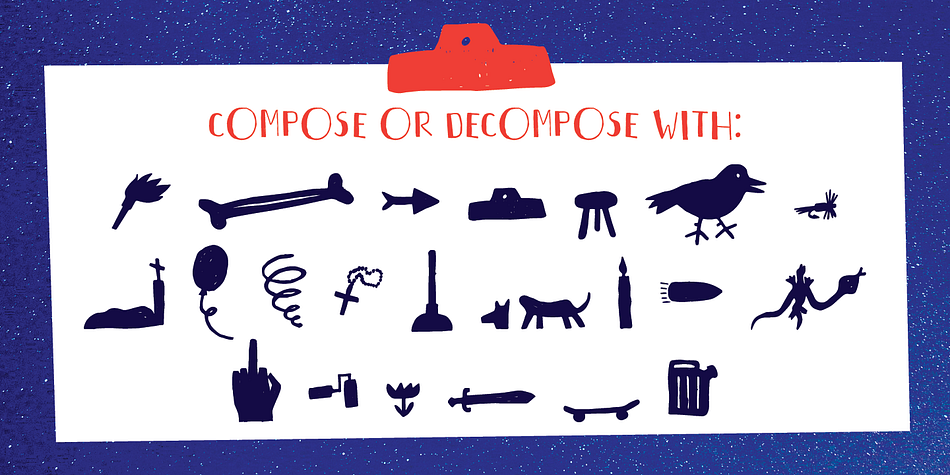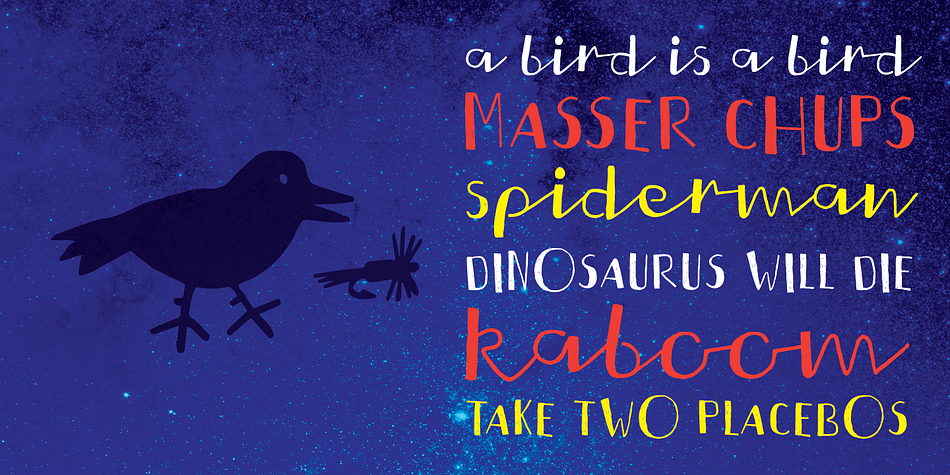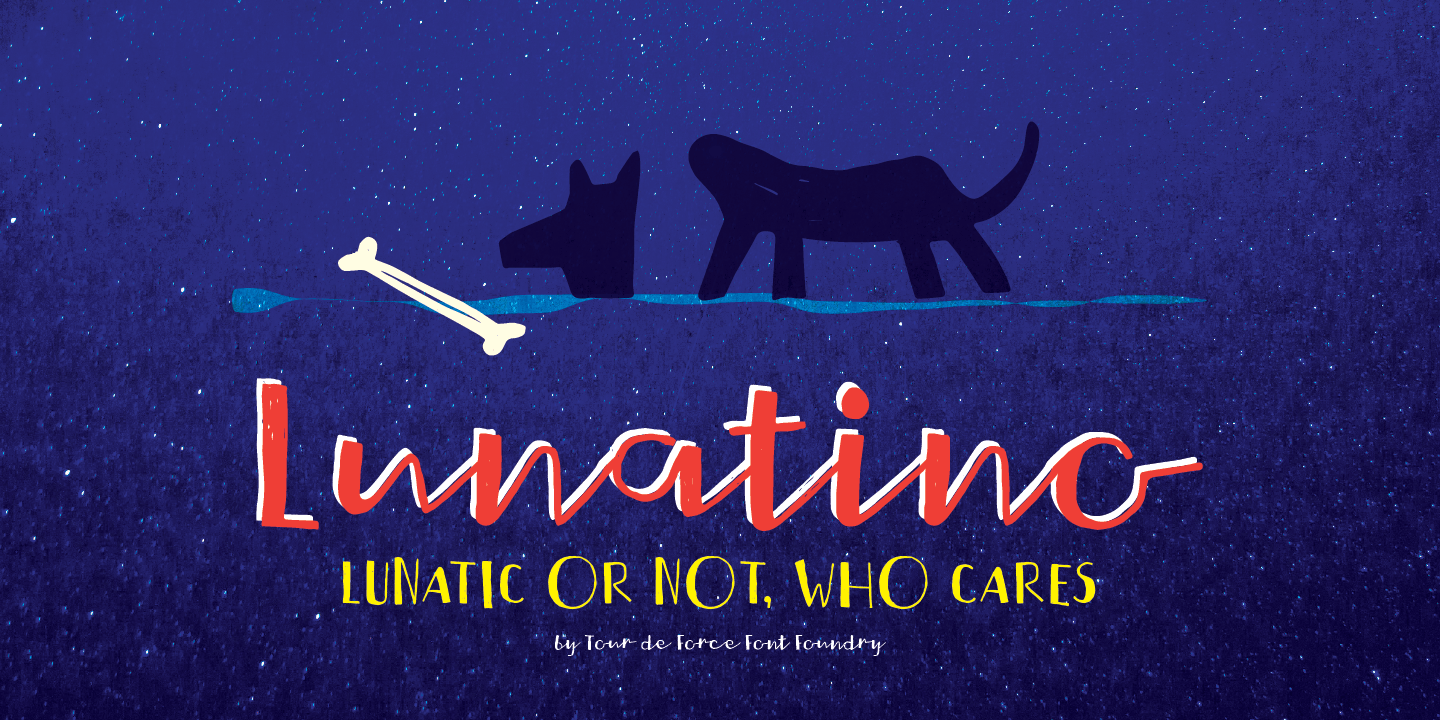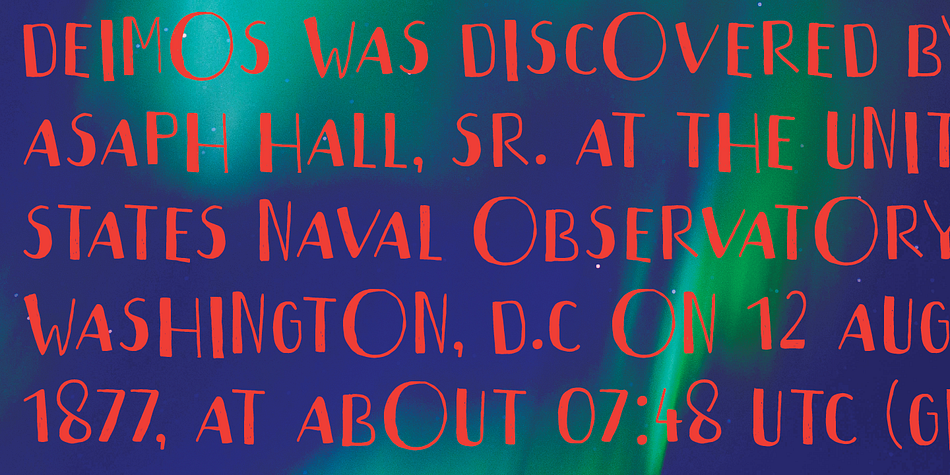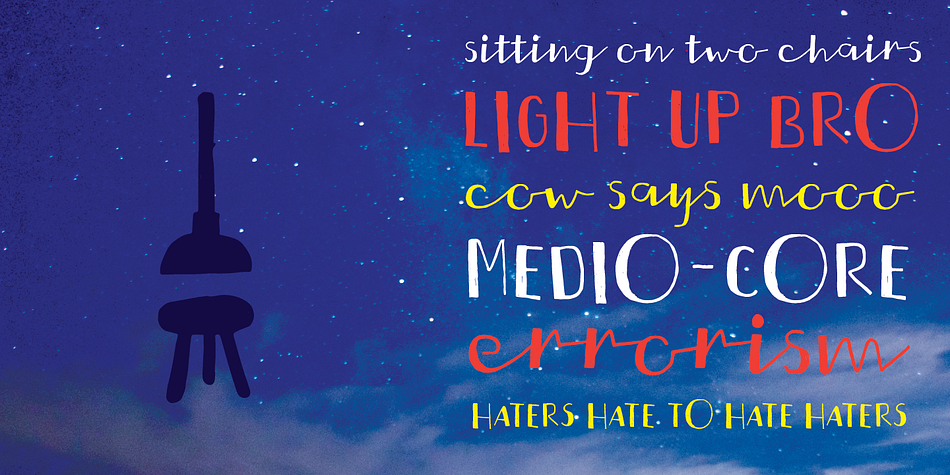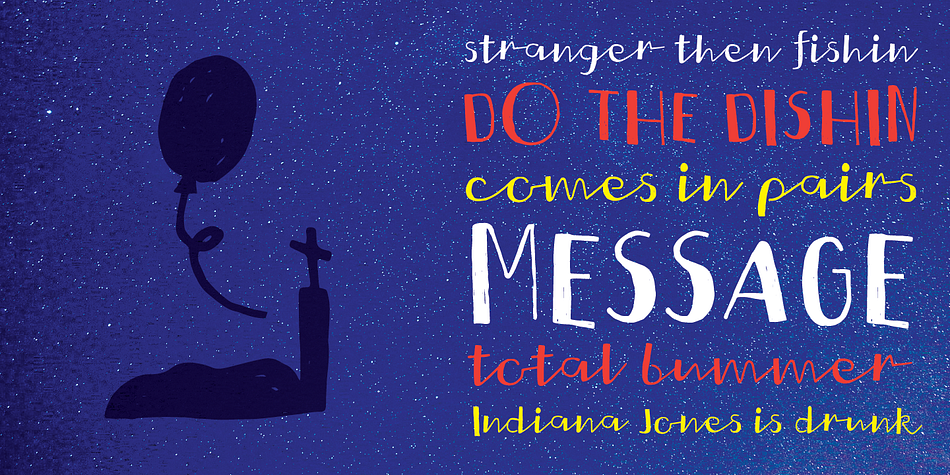
Designed by Dusan Jelesijevic, Lunatino is a hand drawn and script font published by Tour de Force Font Foundry.
Handwritten and drawn “Lunatino” jumps in any needed situation no matter how lunatic it can be. Contains 23 symbols to fulfill the lunacy.
Foundry | Tour de Force Font Foundry |
Styles | Hand Drawn, Script |
Designer | Dusan Jelesijevic |